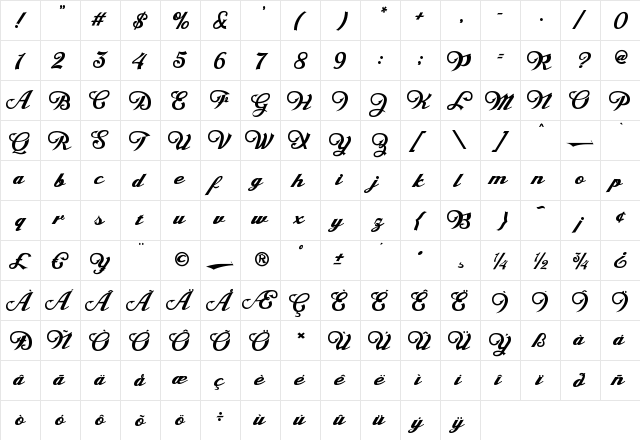
Draft Beer Classic Regular
| Foundry | Michael Hagemann |
| Designer | Michael Hagemann |
Design Context for Draft Beer Classic Typeface
Draft Beer Classic wears its vintage influences proudly, with letterforms that recall mid-century signage, classic packaging, and nostalgia-driven design.
Font Pairing: Combine Draft Beer Classic with a simple slab or neutral sans — period-accurate companions reinforce the vintage feel without competing for attention.
Pro Tip: Use Draft Beer Classic for headlines and pull quotes rather than body copy — its personality is best appreciated in short, focused bursts.